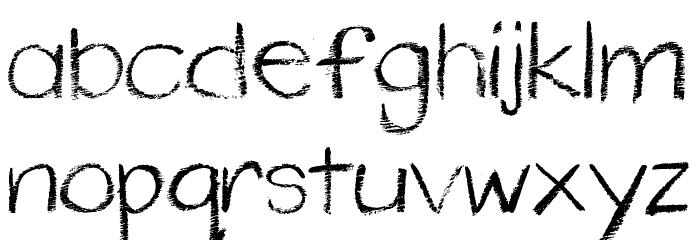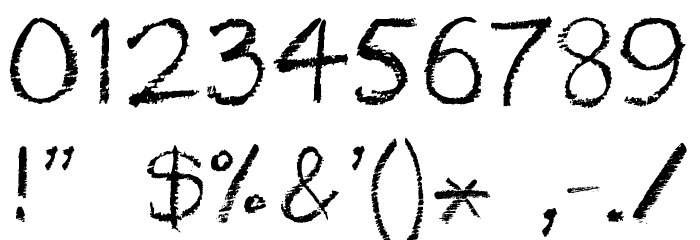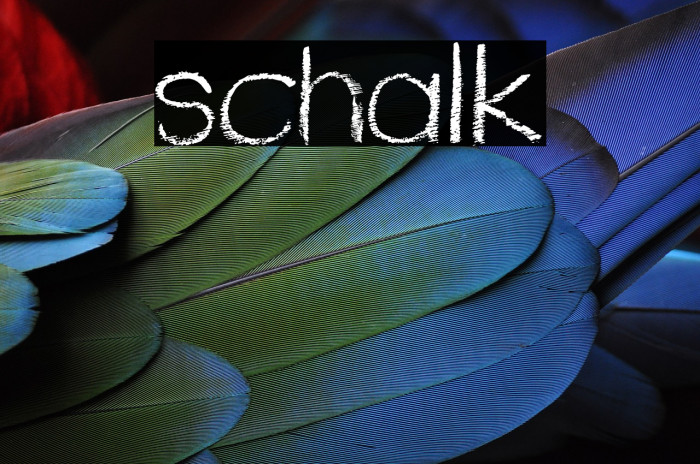
schalk Font
This font features a rough, textured appearance reminiscent of chalk writing on a blackboard. The characters are bold and slightly irregular, giving them a hand-drawn feel. The uppercase and lowercase letters maintain a consistent style, with rounded edges and a playful, informal look. Numbers and special characters follow the same aesthetic, making the font suitable for creative and casual designs. The texture adds a unique visual interest, making it stand out in various applications.
A textured, chalk-like font with a playful, hand-drawn style.
- Proposed Projects: Ideal for educational materials, children's books, playful branding, and creative posters.